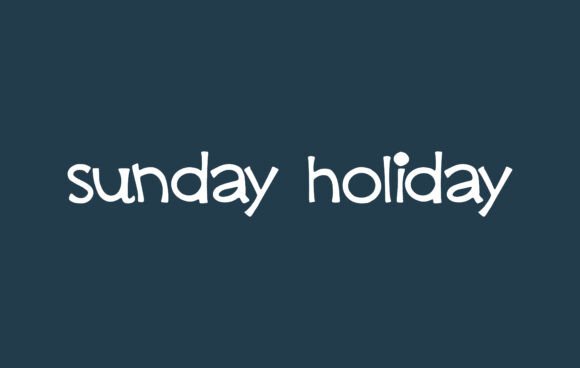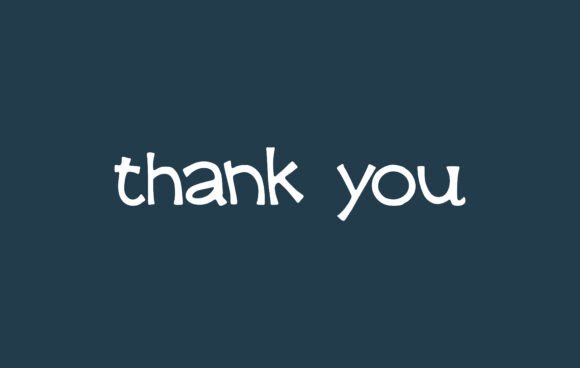
Daffodil Font: Elevate Your Designs with a Romantic Handwritten Touch
Are you looking for a font that can add a touch of romance and elegance to your designs? Look no further than the Daffodil font. This authentic handwritten font is expertly designed to capture the hearts of designers and crafters alike. With its unique blend of sophistication and playfulness, Daffodil font is sure to take your creative ideas to the highest level.
What Makes Daffodil Font Special?
Daffodil font is not just another ordinary font. Its romantic touch and authentic handwritten style make it stand out from the crowd. The font is carefully crafted to be legible and versatile, making it perfect for use as both title and body text. Whether you’re designing a magazine headline, social media post, branding material, wedding invitation, or card, Daffodil font is the perfect choice.
Key Features of Daffodil Font
- Authentic Handwritten Style: Daffodil font boasts an authentic handwritten style that adds a personal touch to your designs.
- Romantic Touch: The font’s romantic touch makes it perfect for designs that require a touch of elegance and sophistication.
- Legible and Versatile: Daffodil font is designed to be legible and versatile, making it suitable for use as both title and body text.
- Perfect for Various Designs: From magazine headlines to social media posts, branding materials to wedding invitations, Daffodil font is the perfect choice for a wide range of designs.
Uses of Daffodil Font
Daffodil font is a versatile font that can be used in a variety of designs. Here are some of the most popular uses of Daffodil font:
- Magazine Headlines: Add a touch of elegance to your magazine headlines with Daffodil font.
- Social Media Posts: Make your social media posts stand out with Daffodil font’s unique and romantic style.
- Branding Materials: Use Daffodil font to create brand materials that are both sophisticated and memorable.
- Wedding Invitations: Add a touch of romance to your wedding invitations with Daffodil font.
- Cards and Stationery: Daffodil font is perfect for designing cards and stationery that require a personal touch.
Tips for Using Daffodil Font
Here are some tips for using Daffodil font effectively in your designs:
- Pair with Other Fonts: Experiment with pairing Daffodil font with other fonts to create a unique and visually appealing design.
- Use in Combination with Images: Use Daffodil font in combination with images to add a touch of elegance to your designs.
- Experiment with Colors: Experiment with different colors to find the perfect combination that complements Daffodil font.
In conclusion, Daffodil font is a unique and versatile font that can add a touch of romance and elegance to your designs. With its authentic handwritten style, romantic touch, and legibility, Daffodil font is perfect for a wide range of designs. Whether you’re a designer or crafter, Daffodil font is sure to take your creative ideas to the highest level.